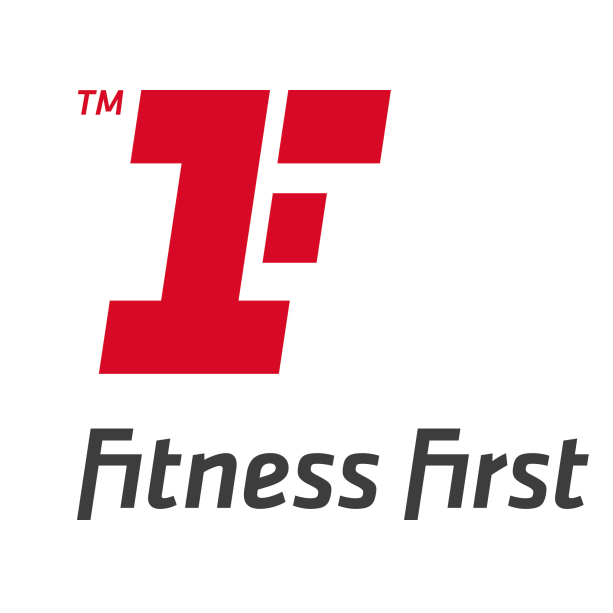
Fitness First Logo Font
Fonts in UseFitness First is a global chain of health clubs and gyms, with over 400 clubs in 16 countries. It was founded in the UK in 1993 and is now headquartered in Singapore.
Designed by London-based studio The Clearing, the Fitness First logo showcases a "1F" monogram that complements the gym's name. The wordmark below the monogram is a sans-serif font that bears a striking resemblance to Eric Olson's Klavika Medium Italic, a geometric sans-serif with square proportions.